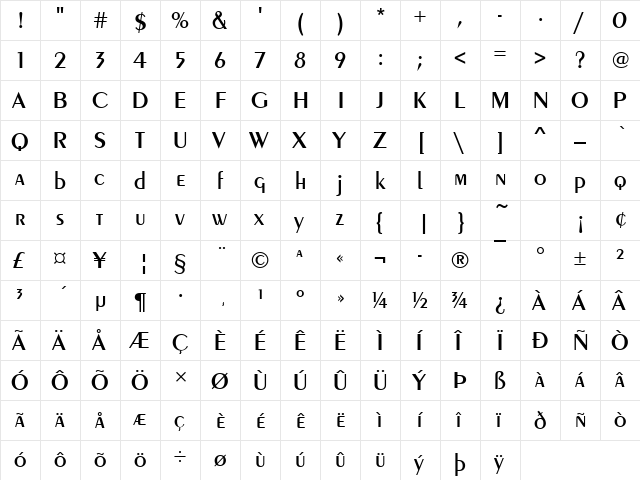
URWPelionDMed Regular
Design Context for URWPelionDMed Typeface
URWPelionDMed takes a measured approach to typography — its balanced proportions and neutral character make it a reliable workhorse for both digital and print work.